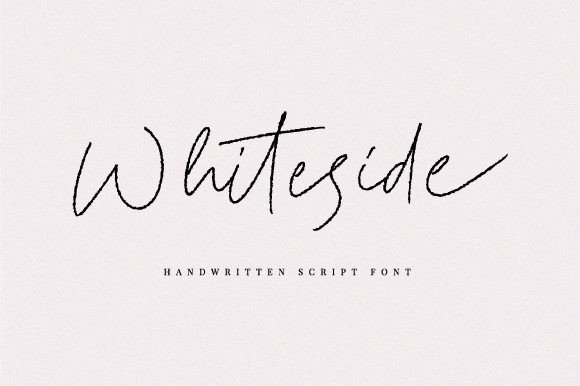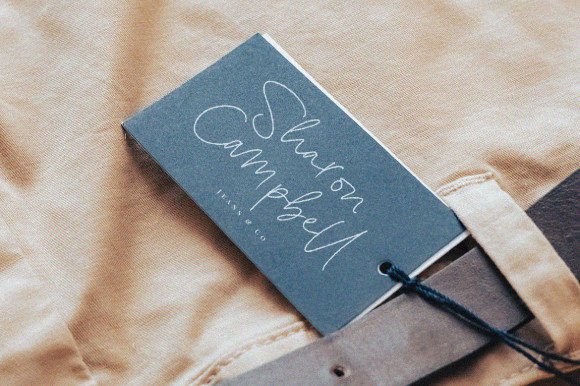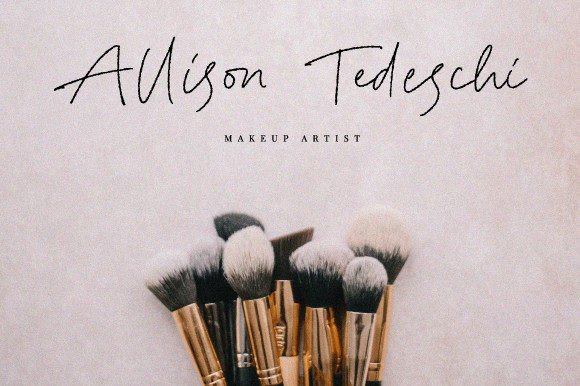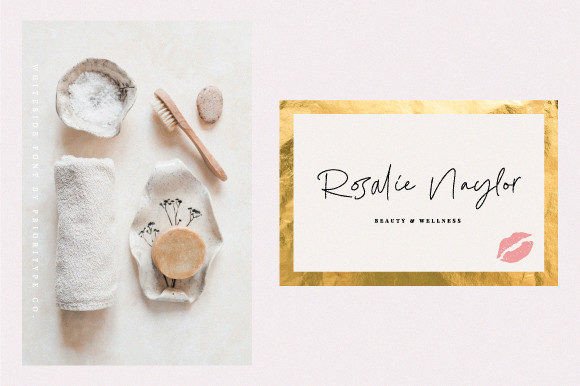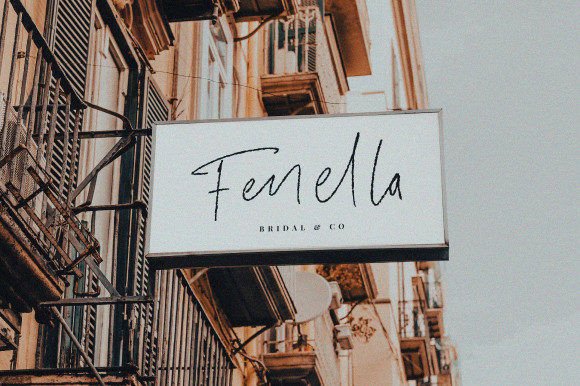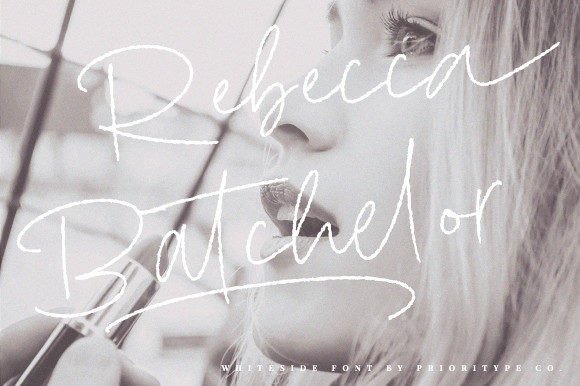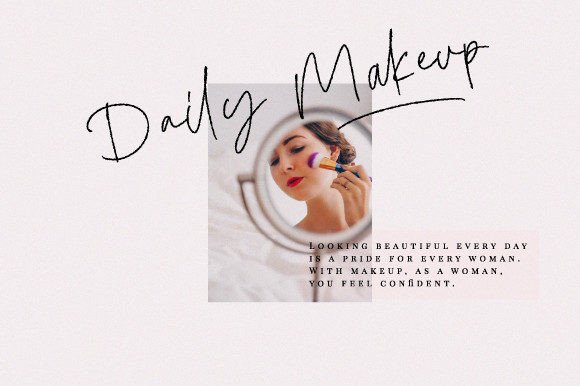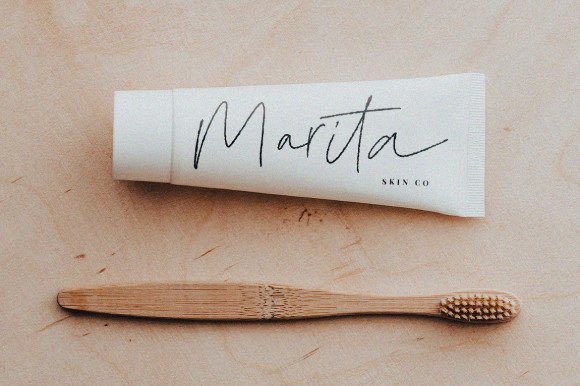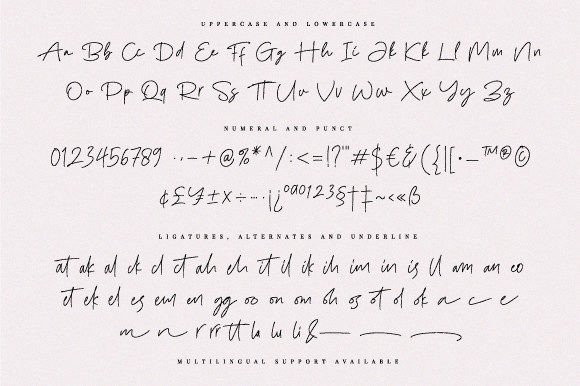
Whiteside
Whiteside Font: Textured Handwritten Script for Authentic Designs
Introducing the Whiteside Collection – three beautifully textured handwritten fonts that bring organic authenticity to your projects. These carefully crafted scripts combine natural imperfections with professional OpenType features, making them perfect for designers who want real handwriting character without sacrificing functionality.
Collection Highlights
• Triple Value: 3 distinct handwritten styles
• Authentic Texture: Subtle paper grain effects
• Global Ready: Supports 50+ languages
• Smart Features: Ligatures & contextual alternates
Professional Applications
Branding Excellence
Perfect for:
• Artisan food packaging
• Craft brewery logos
• Boutique shop branding
Digital Presence
Ideal for:
• Website header text
• Social media quotes
• Email signature styling
Authentic Handwritten Texture
Bold Character Flair
Delicate Thin Strokes
• OpenType Features: Ligatures, Alternates, Underline
✏️ Designer Tip: Use the textured version at larger sizes (24pt+) for maximum authentic impact.
Perfect Pairings
1. Rustic Contrast: with Cabin Sketch
2. Modern Balance: with Montserrat
3. Vintage Flair: with Sail